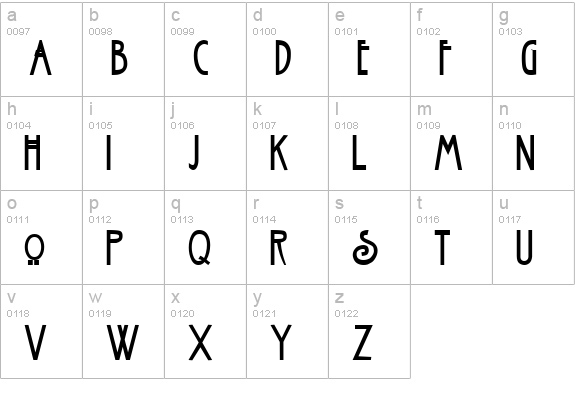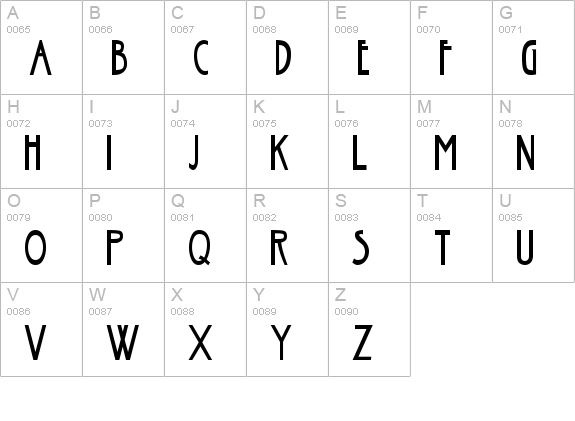
Nouveau Bold is a strong, high-contrast variant in the Nouveau typeface family \xE2\x80\x94 well suited to headlines, attention-grabbing titles, and strong calls-to-action.
Nouveau Bold font is a striking and modern typeface that exudes confidence and sophistication. Its bold, clean lines and sleek aesthetic make it perfect for creating eye-catching designs that demand attention. Whether you're designing a poster, logo, or website, Nouveau Bold will make your text stand out with its bold presence. The best part? Nouveau Bold is completely free to download at FontsMarket.com. This means you can elevate your design projects without breaking the bank. Don't miss out on this incredible opportunity to add a touch of elegance and style to your creations with Nouveau Bold font. Download it today and let your creativity soar!